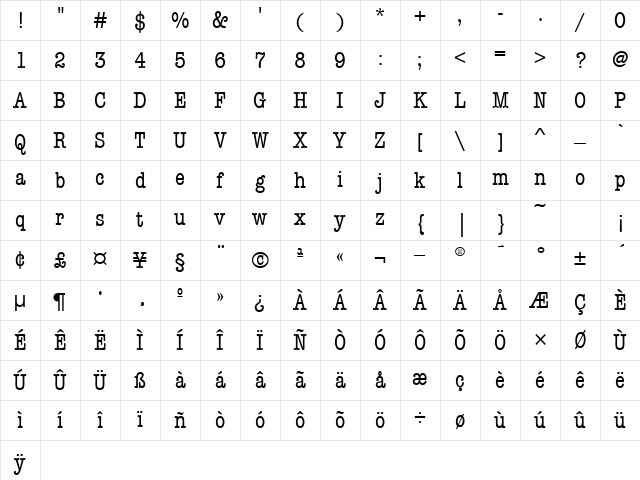
AmTypewriterCdMdITCTT Regular
Foundry: International Typeface Corporation
Designer: Tony Stan/Joel Kaden
Design Context for AmTypewriterCdMdITCTT
AmTypewriterCdMdITCTT uses fixed-width spacing throughout, giving it the structured, systematic character associated with coding environments and technical documentation.
Pro Tip: Use AmTypewriterCdMdITCTT with slightly increased line-height for extended reading - fixed-width spacing can feel dense in longer passages without extra breathing room.